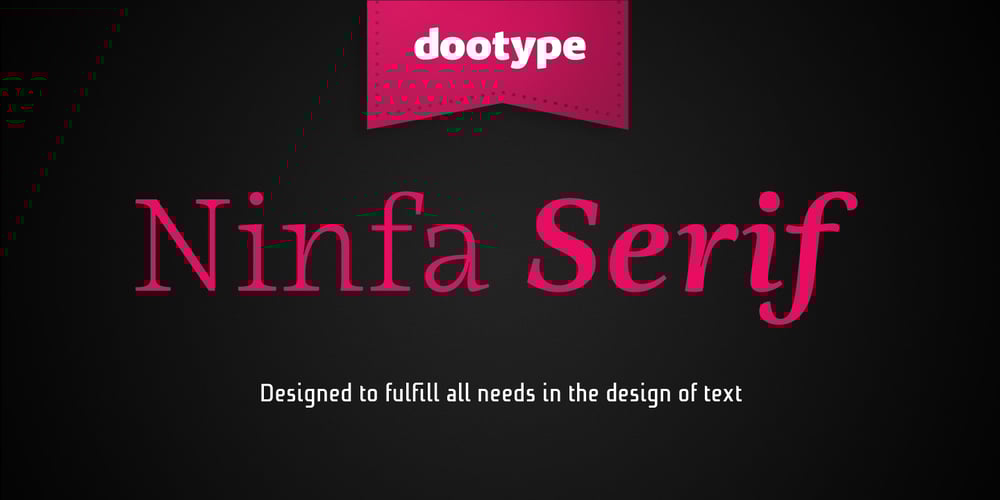
Ninfa Serif Font Family was designed by Eduilson Wessler Coan and published by dooType. Ninfa Serif contains 10 styles and family package options. Using the genetic inheritance of semi-serif typeface Ninfa, designed in 2008, Ninfa Serif has 10 styles and designed to fulfill all needs in the design of text – books and magazines.